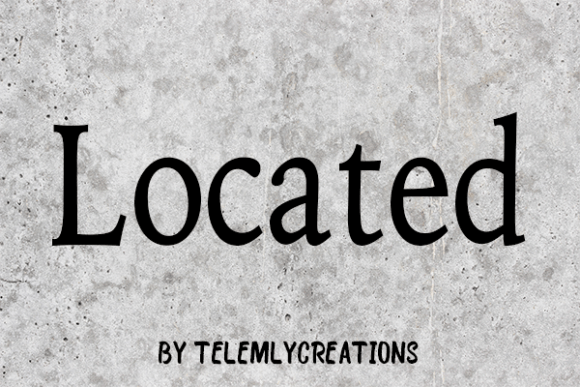
Introduction to Located Font
Do you remember the thrill of discovering that perfect font for your creative project? The moment when everything falls into place, and your design comes alive? For designers, that ‘aha’ moment is priceless. It’s the difference between a good design and a great one. And for those who have been searching for that elusive perfect font, we have some exciting news: meet the Located Font.
This stunning serif font is more than just a pretty face – it’s a design resource that will elevate your creative work to new heights. With its unique and beautiful touch, the Located Font is perfect for creating eye-catching logos, branding, and quotes that demand attention. Whether you’re working on a high-quality project or need a reliable font for a free download, the Located Font is an excellent choice.
- High-quality font with a transparent background, ideal for creative projects requiring a clean and modern design.
- Unique characteristics, such as its modern and sleek design, make it an excellent choice for designers looking to add a touch of sophistication to their work.
- Located Font is designed to be versatile, allowing designers to use it for a wide range of creative projects, from digital art to print materials.
- Perfect for designers who want a high-quality font that is easy to use and customize, making it an excellent addition to any design resource library.
I recently had the opportunity to work with the Located Font, and I must say it’s been a game-changer for my creative projects. This font is perfect for designers who want to add a touch of elegance and sophistication to their designs.
- ✨ The font has a clean and modern design that’s perfect for a wide range of creative projects.
- ✨ The high quality of the font ensures that it looks great on both digital and print materials.
- ⚠️ The font may not be suitable for very small text sizes, as it can become difficult to read.
- ⚠️ Some users may find the font too plain or lacking in personality.
Overall, I’m really impressed with the Located Font. It’s a solid design resource that’s perfect for designers who want to create high-quality designs without breaking the bank. I highly recommend giving it a try!
The Located Font is suitable for a wide range of creative projects, including brochures, posters, and business cards. It’s also a great design resource for free download, perfect for designers and artists looking for high-quality fonts.